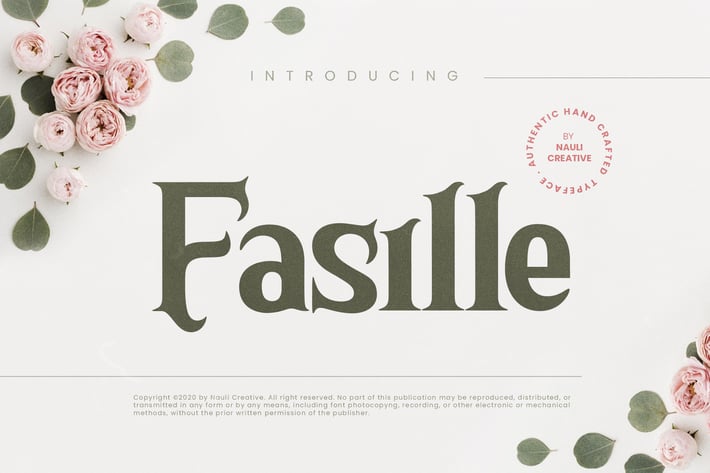
Fasille - Elegant Decorative Typeface
Are you looking for a elegant unique decorative font that have a unique beauty feeling? We can help! Try to download our Fasille font. The font is suitable to use for all purpose. Try to use it on banner ads, event, greeting card, poster, postcard, photography, branding, editorial, quote, music, movie title, travelling, garage, and many more to see the best of it :)
Basic Latin A-Z and a-z